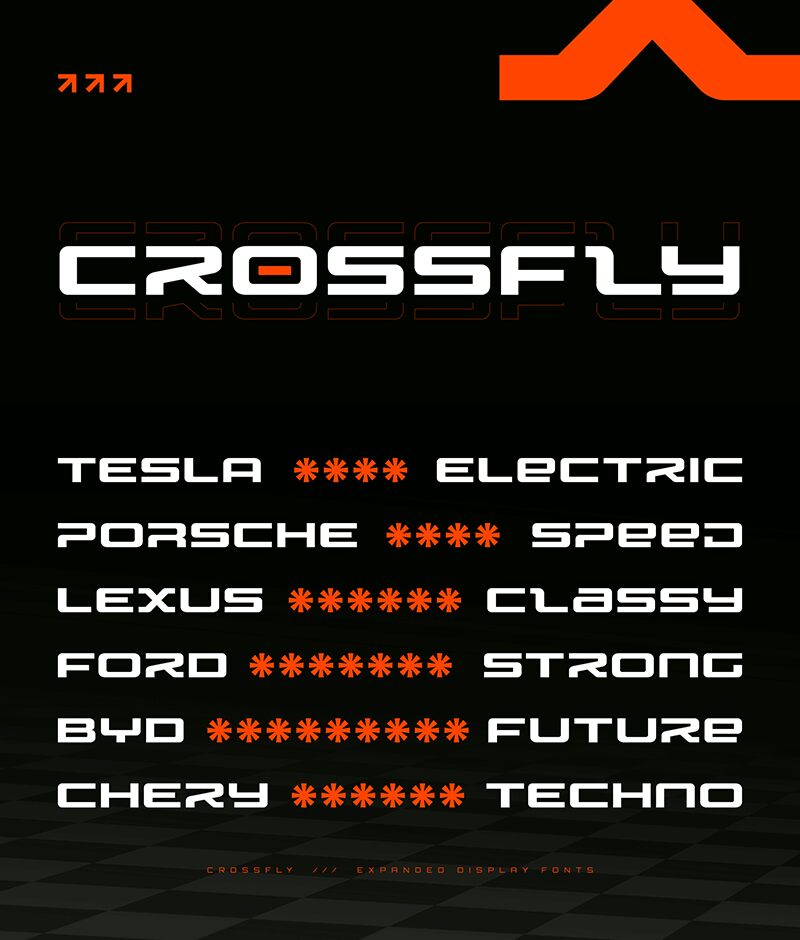
Crossfly font by Namara Creative is a free subtly futuristic font that comes with elevated potential for your futuristic and modern projects. The structured look and sleek style give this techno font its high-tech appeal and geometric finish. Even a modest use of Crossfly in your design project will immediately give it an acknowledged sense of modernity that evokes a sense of innovation.
Whether it’s a logo design, a website, or an interface for a mobile application, Crossfly is almost always a match to the type of project. The font is also great for branding, advertising, banners, posters, packaging, and more, especially if projects are of technical nature.
An exciting typeface that captures the spirit of technology, speed, and movement. This unique font is perfect for projects that require a modern and dynamic aesthetic, making it an excellent choice for graphic design, branding, and personal projects.